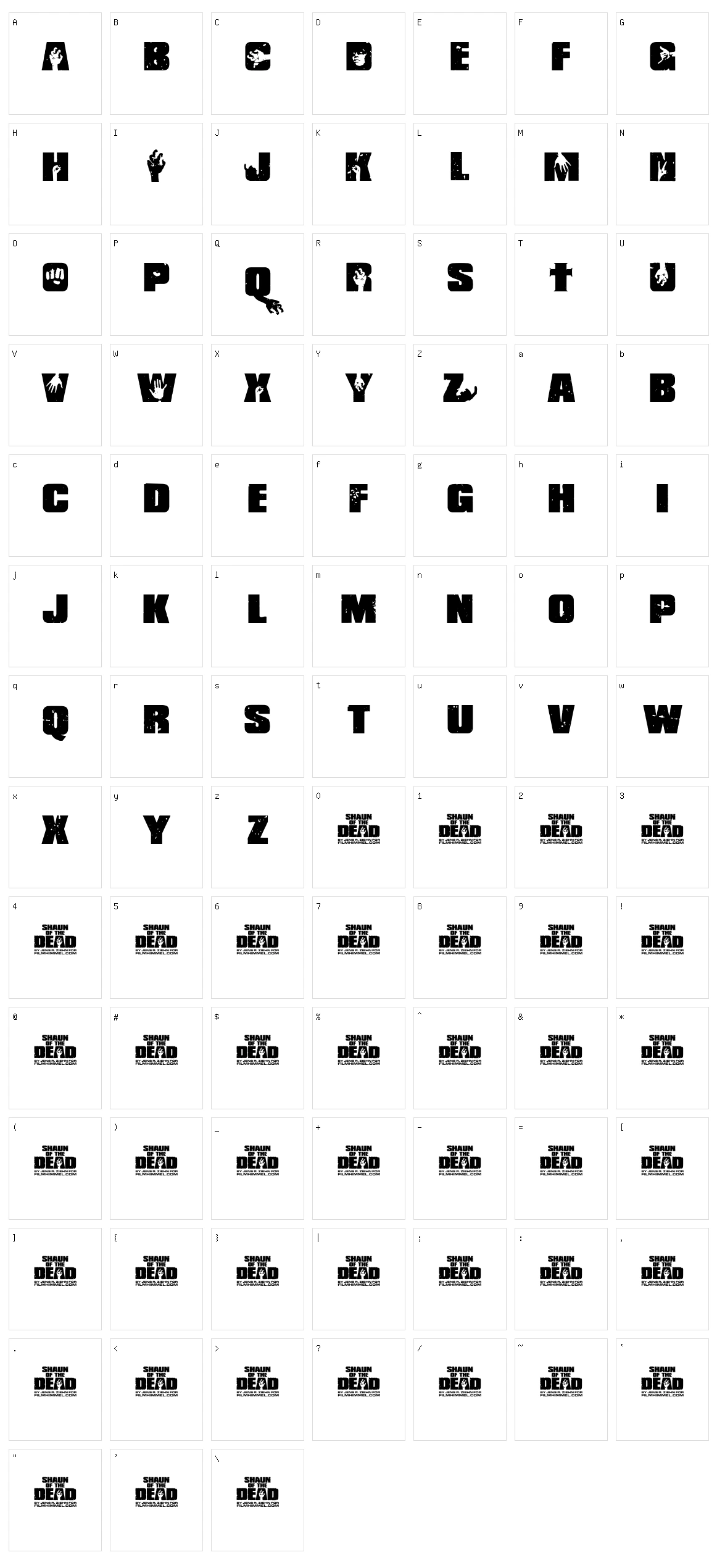
The free font Shaun of the Dead is carefully designed by Filmhimmel, showcasing a thoughtful balance of creativity and usability and falls under the Horror font style. When you download the ZIP file, it contains only 30.4 KB of font files, making it lightweight and quick to download. Please review the license details below to understand permitted usage and distribution rights. If license information is not available, we recommend using this font for personal projects only or contacting the author directly for commercial usage permissions.